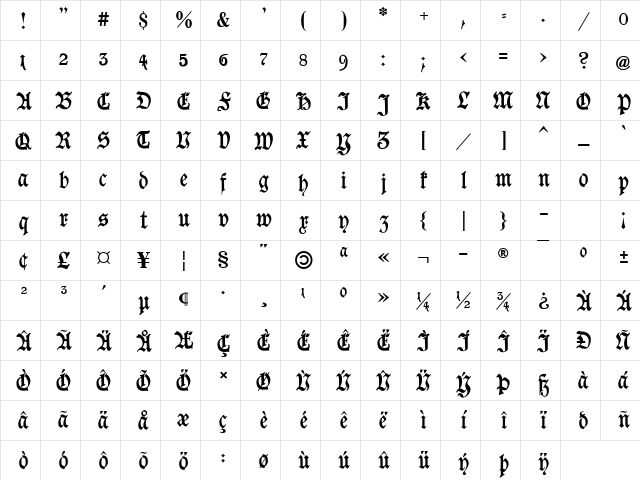
Goeschen Fraktur UNZ1A Italic
| Foundry | Peter Wiegel |
| Designer | Peter Wiegel, original typeface by Carl Albert Fahrenwaldt 1901 |
| Year | 2010 |
Design Context for Goeschen Fraktur UNZ1A Typeface
Goeschen Fraktur UNZ1A channels the dramatic heritage of Fraktur and Gothic scripts, bringing a sense of historical gravitas to any design. Its italic angle brings a sense of urgency and motion to the letterforms.
A natural fit for music packaging, gothic editorial design, and any project that needs historical weight.
Font Pairing: Pair with a clean neutral sans-serif for body copy to let Goeschen Fraktur UNZ1A's character lead without overwhelming the composition.
Pro Tip: Reserve Goeschen Fraktur UNZ1A for display and logo use — pair it with a clean sans-serif for body copy to prevent the composition from feeling oppressive.